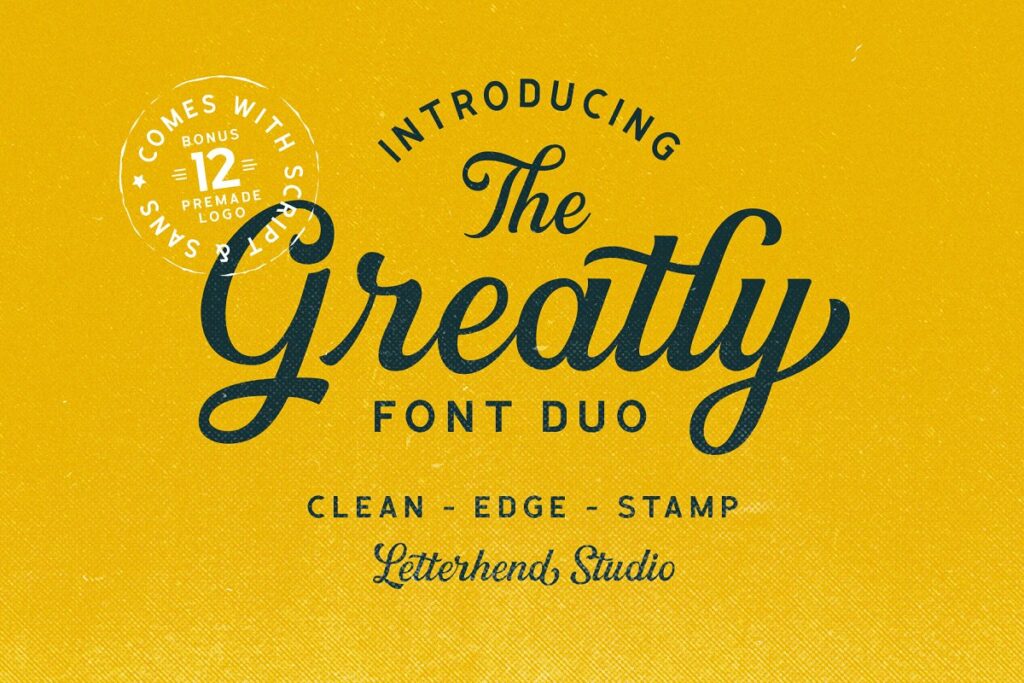
Greatly Script Font
A new fresh script and sans font family. I think this may be my most favorite font yet. Introducing Greatly Font Duo. Greatly Font Duo is a pair of script and sans font that perfectly .
The classic feel is really perfect for you who needs a typeface for especially logotype, apparel, invitation, branding, packaging, advertising etc.